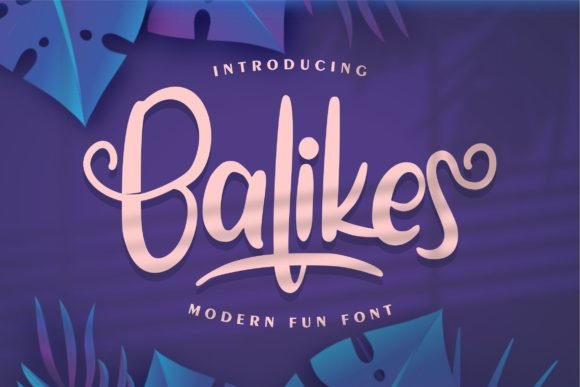
Discover the Timeless Elegance of Balikes Font
There’s nothing quite like the thrill of creating something new, the spark of inspiration that sets your imagination ablaze. For designers, this moment is a rush of adrenaline, a chance to bring their vision to life. And for many, that vision starts with the perfect font – one that captures the essence of their creative vision and elevates their design to new heights.
Enter Balikes Font, a flowing handwritten font that embodies elegance and sophistication. With its unique, timeless style, Balikes Font is the perfect addition to any project, from wedding invitations to branding materials. Its versatility and beauty make it a valuable tool for designers, allowing them to craft spectacular designs that leave a lasting impression.
Balikes Font Key Features
- Unique Characteristics: Balikes Font features a unique blend of modern and traditional design elements, with intricate details and ornate flourishes.
Designer Review: Balikes Font
As a designer, I was excited to dive into the Balikes Font, but my experience was a mixed bag.
- Unique aesthetic: Balikes Font has a distinctive, modern feel that can add a touch of elegance to any design.
- Legibility: The font is highly legible, even at smaller font sizes, making it a great choice for body text.
- Customization options: The font comes with a range of weights and styles, allowing designers to experiment with different looks and feels.
- Limited language support: The font may not be optimized for non-Latin scripts, which could be a limitation for global brands or designers working with international clients.
Overall, the Balikes Font is a solid choice for designers looking for a modern, legible font. While it has some limitations, its unique aesthetic and customization options make it a great addition to any design toolkit. If you’re willing to invest in the font, I’d definitely recommend giving it a try.
Tips for Getting the Most Out of Balikes Font
Use Balikes Font to add a unique and elegant touch to your designs.
Experiment with different font sizes and styles to create a visually appealing effect.
Use Balikes Font in combination with other fonts to create a harmonious and balanced design.
Use Balikes Font for:
Business cards and marketing materials.
Blog posts and articles.
Any design project that requires a sophisticated and elegant touch.